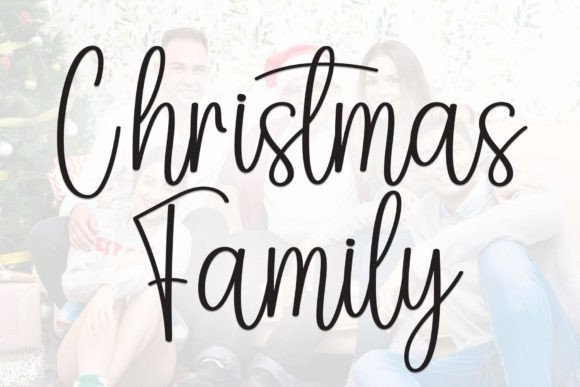
Deck the Halls with a Dash of Whimsy: Introducing Christmas Family Font
As I sat at my kitchen table, surrounded by twinkling lights and festive decorations, I stumbled upon the perfect design moment. It was the night before Christmas, and I was brainstorming ideas for my sister’s holiday card. I wanted something that captured the warmth and love of our family gatherings, something that would transport her loved ones to a cozy winter wonderland. That’s when I discovered the Christmas Family Font – a sweet and friendly handwritten display font that exuded the very essence of the holiday season.
This charming font is not just a pretty face; it’s a valuable tool for designers looking to add a touch of whimsy to their projects. Whether you’re crafting wedding invitations, cards, or any other design that needs a fun touch, the Christmas Family Font is sure to bring a smile to your clients’ faces. Its versatility and playfulness make it an excellent choice for designers seeking to create memorable and engaging designs.
Key Features of Christmas Family Font
- Unique Characteristics: Includes a range of festive and family-oriented icons, ornaments, and decorations to enhance holiday-themed designs.
Christmas Family Font Review
Overall, I think the Christmas Family Font is a charming addition to any holiday design project. ✨ The font’s hand-drawn feel and intricate details give it a unique, homemade quality that’s perfect for creating a cozy, family-friendly atmosphere. ✨ The font’s playfulness is also well-suited for children’s content, like greeting cards or storybooks.
One of the standout features of the Christmas Family Font is its versatility. ✨ It comes in a range of weights and styles, from bold and playful to delicate and elegant. This makes it easy to adapt the font to different design contexts and moods. ✨ Additionally, the font’s bold characters are perfect for creating eye-catching headlines and titles.
- ⚠️ Limited character set: The Christmas Family Font only includes a limited set of characters, which may not be suitable for longer text blocks or complex designs.
- ⚠️ Limited language support: The font only supports a few languages, which may limit its use in multilingual designs.
- ⚠️ May not be suitable for small text sizes: The font’s intricate details may become difficult to read when used at small text sizes.
In conclusion, the Christmas Family Font is a delightful addition to any holiday design project. While it may have some limitations, its unique feel and versatility make it a great choice for creating engaging, family-friendly content. With a little creativity and planning, you can unlock the full potential of this charming font.
For optimal results, pair the Christmas Family Font with complementary colors and textures. Experiment with different font sizes and styles to create visual interest. Consider combining the font with other festive graphics, such as snowflakes, holly, or Santa hats.
The Christmas Family Font is ideal for various holiday-related projects, including:
- Holiday invitations and greeting cards
- Festive party decorations and signage
- Custom gift tags and gift certificates
- Holiday-themed social media graphics and posters
Alternatives to Christmas Family Font
The Christmas Family Font is a popular font used for holiday-themed designs, but designers may be looking for alternatives that offer unique styles or characteristics. Here are a few options to consider:
Great Vibes is a beautiful, handwritten font that is perfect for adding a touch of elegance to holiday designs. It features a mix of script and serif elements, making it suitable for a wide range of applications, from invitations to social media graphics. Compared to Christmas Family Font, Great Vibes has a more refined and sophisticated look, making it ideal for designers who want to create a more high-end feel.